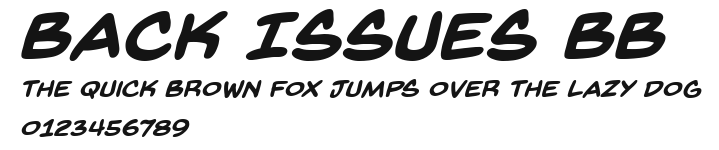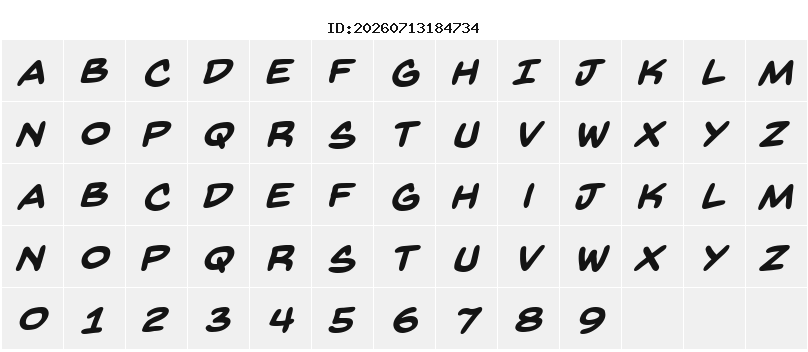
• Font Name: Back Issues BB
• Font ID: NatePiekos.Blambot.com: Back Issues BB Bold Italic: 2014
• Full Font Name: Back Issues BB Bold Italic
• PostScript Name: BackIssuesBB-BoldItalic
• Designer: Nate PIekos
• Manufacturer: Nate Piekos. Blambot.com
About Back Issues BB.ttf
Back Issues BB.ttf is a modern, elegant sans-serif font designed for ultimate readability and visual harmony. Perfect for branding, headlines, web design, and print materials.